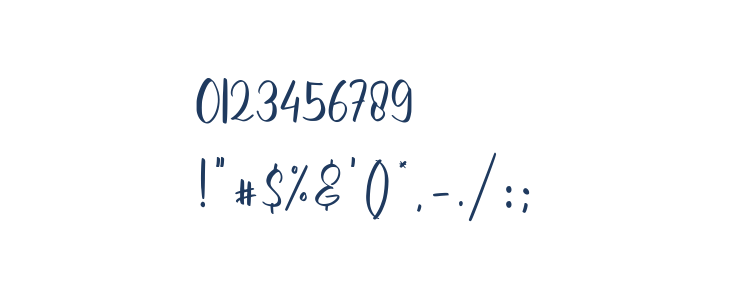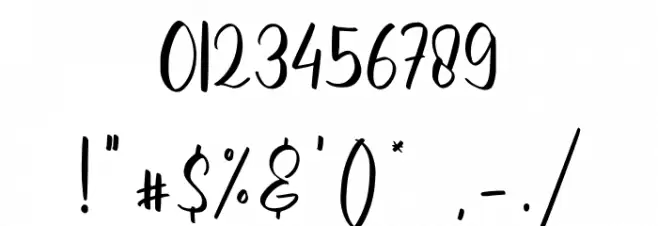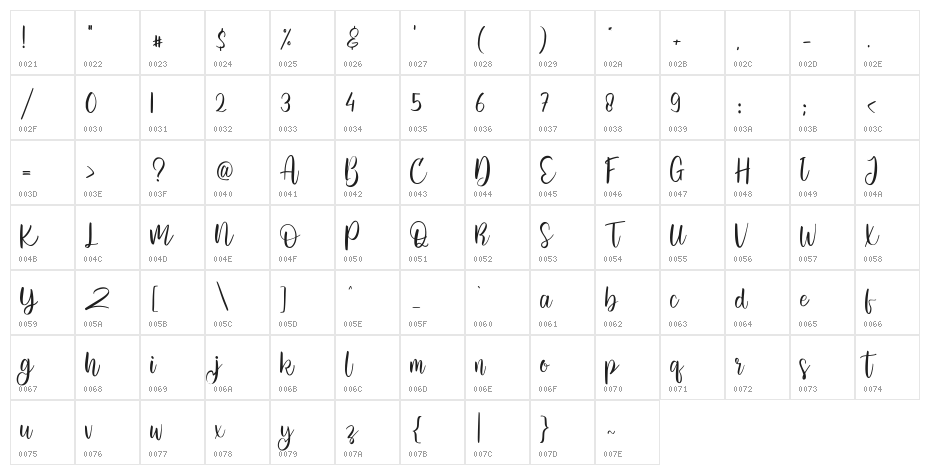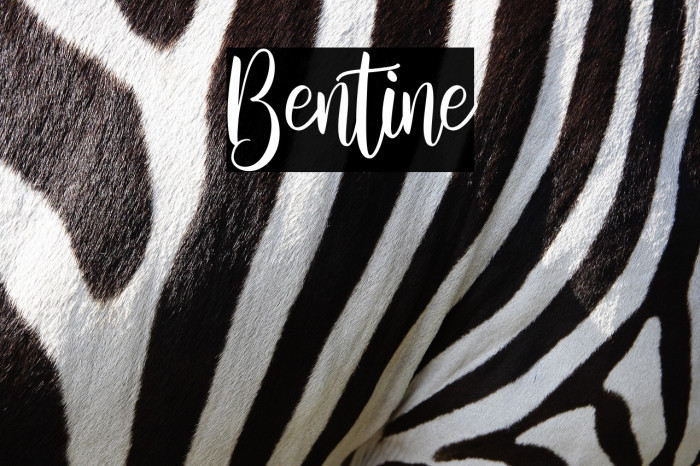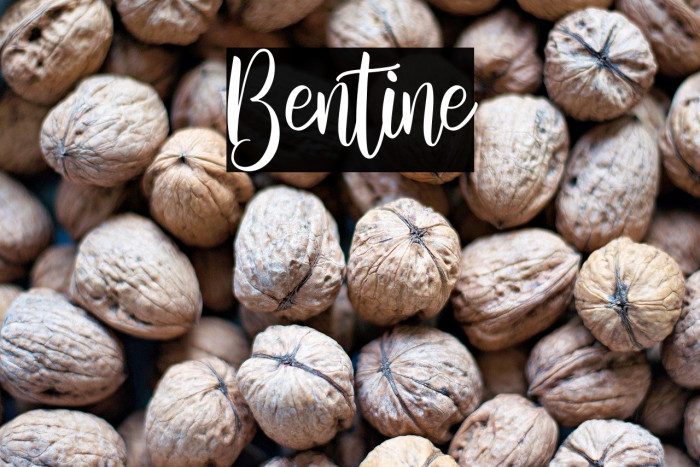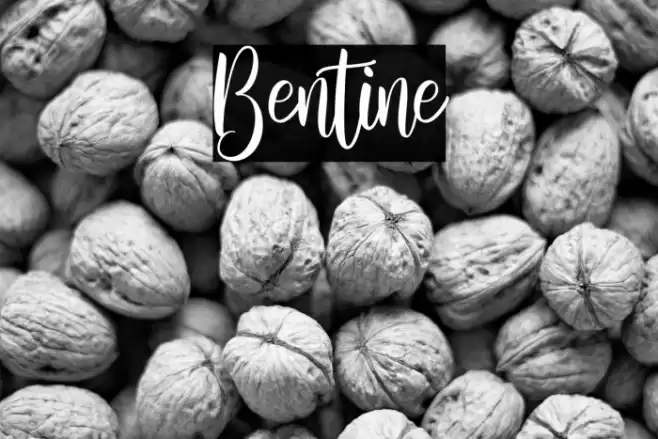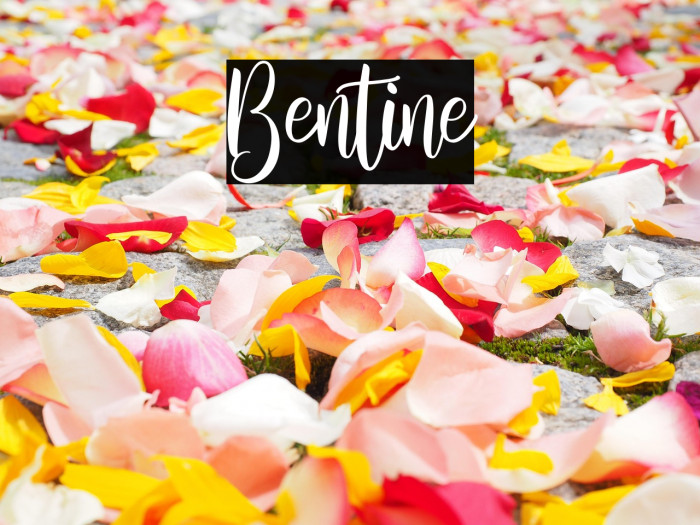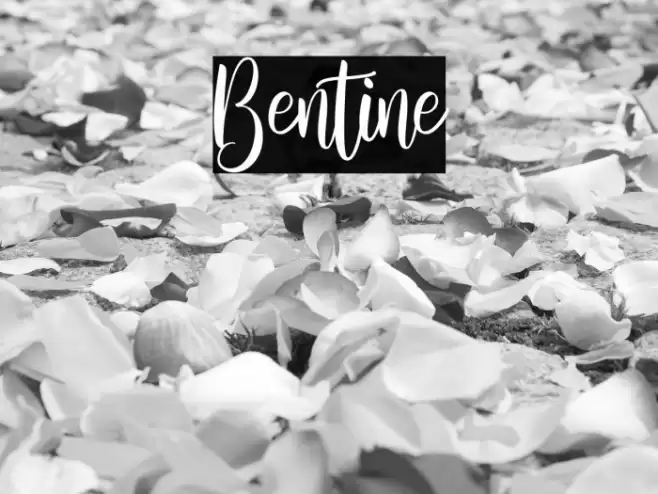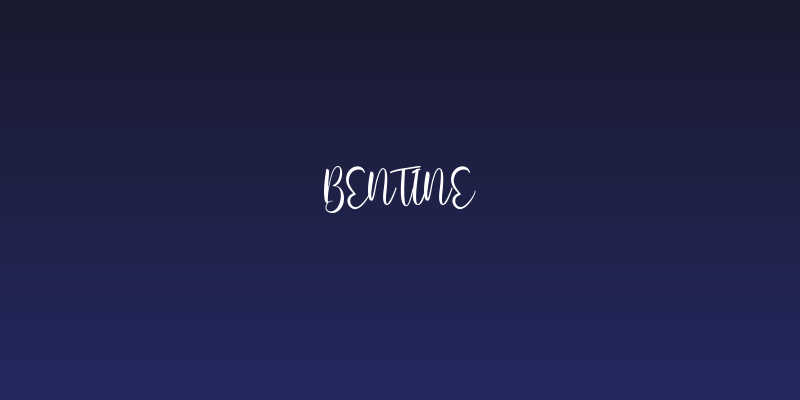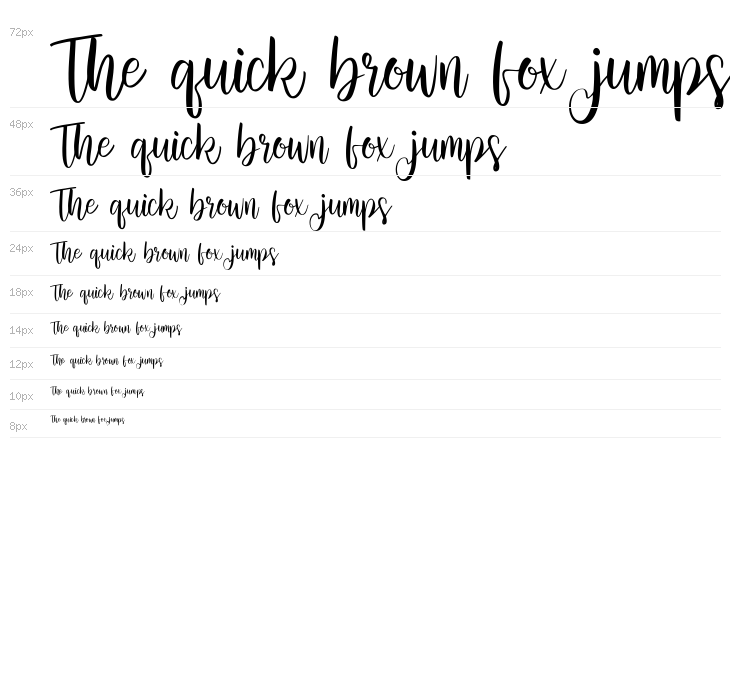
Bentine Font
Bentine Description
This font features a lively and expressive script style, characterized by its fluid and dynamic strokes. The letters are interconnected, creating a sense of movement and elegance. The uppercase letters are bold and prominent, while the lowercase letters maintain a consistent flow with a slightly more delicate touch. The numerals and special characters complement the overall style, maintaining the same energetic and playful aesthetic. This font is perfect for projects that require a personal and artistic touch, such as invitations, greeting cards, or branding materials.
| Proposed Projects | Ideal for invitations, greeting cards, branding materials, and artistic projects. |